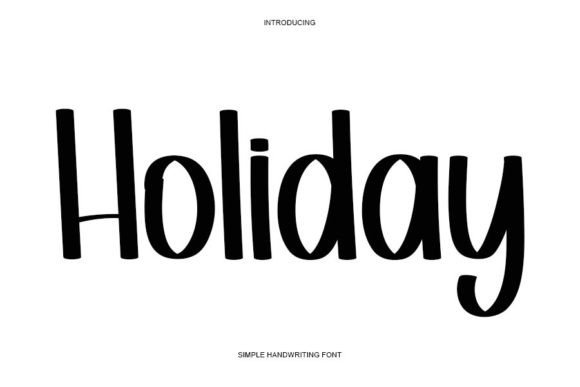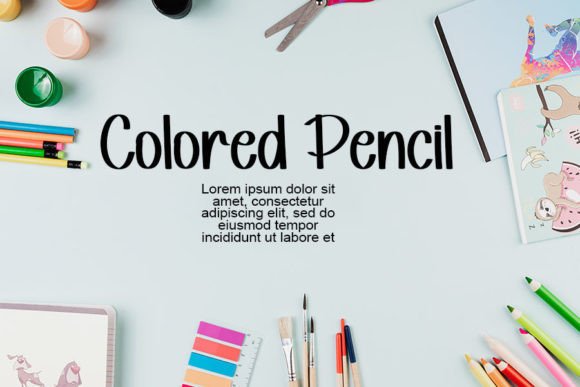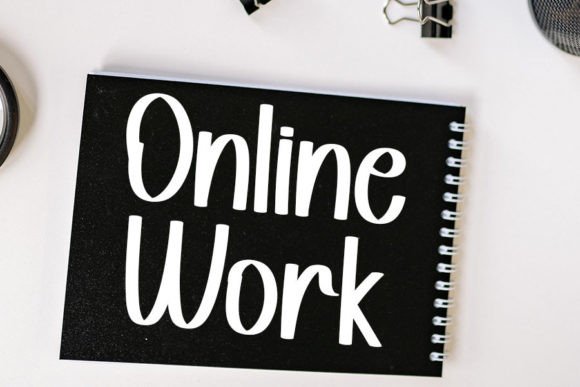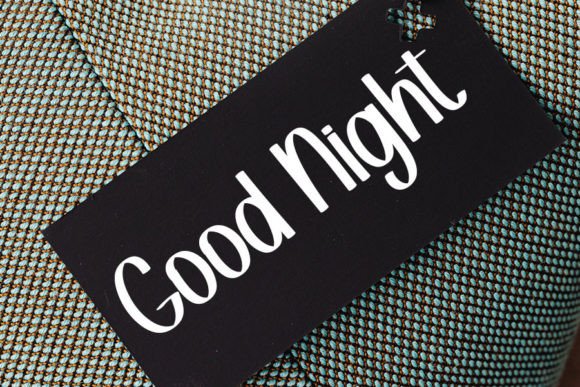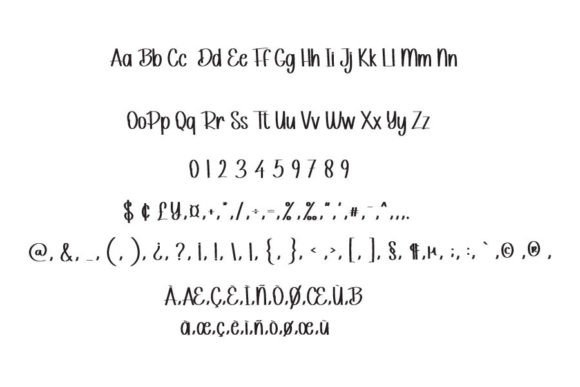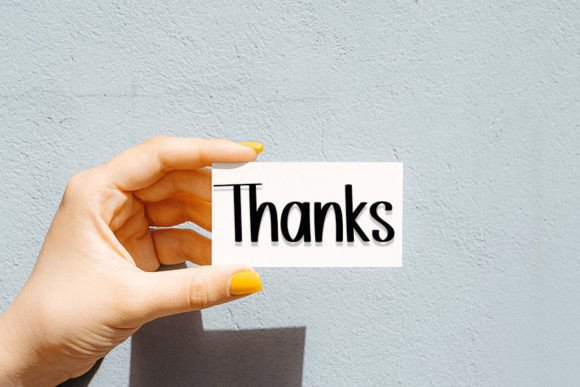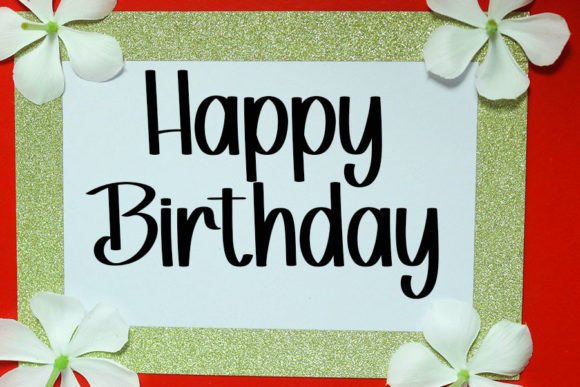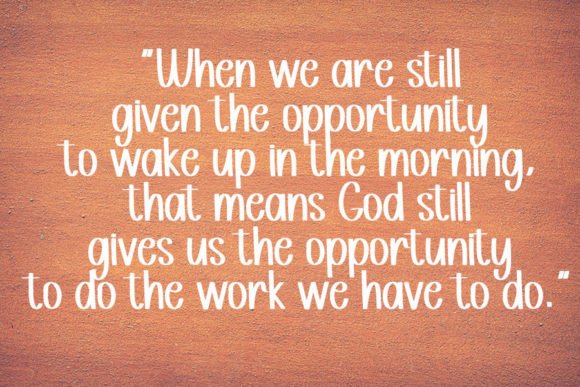
Holiday Font
Add Unique Charm with Holiday Font
Holiday Font offers a delicate, handwritten style that brings a cool and unique look to your designs. It suits many projects well. Whether you want to write letters, design invitations, package food products, or create eye-catching titles, Holiday Font will make your work stand out. Its gentle strokes and balanced letters add warmth and elegance. This font makes your designs feel inviting and special.
Versatile Uses for Holiday Font
You can use Holiday Font in many ways, such as:
• Writing personal letters and notes
• Designing wedding and event invitations
• Creating food product packaging and labels
• Making titles and headlines for print and digital media
• Crafting greeting cards and stationery
• Working on DIY and craft projects
Because of its delicate and unique handwritten look, HolidayFont brings charm and style to all your ideas.
With good spacing and kerning, HolidayFont keeps your text clear and attractive in all sizes and formats.
Why Designers Choose Holiday Font
Many designers like HolidayFont because it combines delicacy with uniqueness. It adds a personal and professional feel that lifts any project. Whether you design professionally or as a hobby, HolidayFont helps you create beautiful and memorable text.
Use HolidayFont to give your next design a cool, special touch.